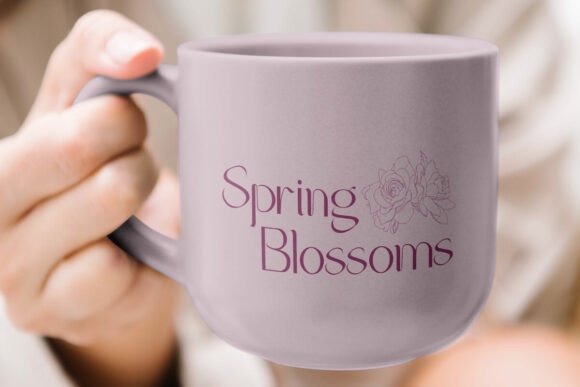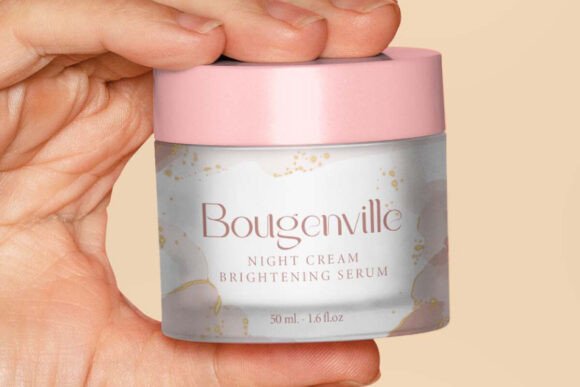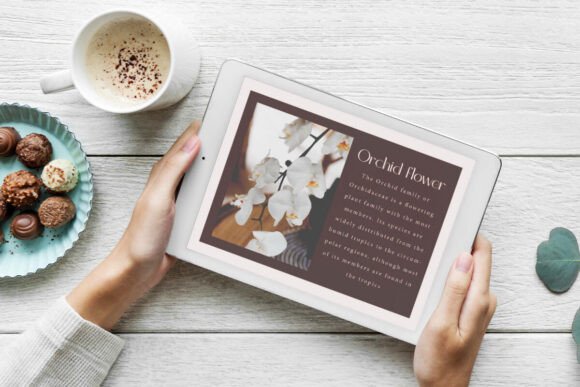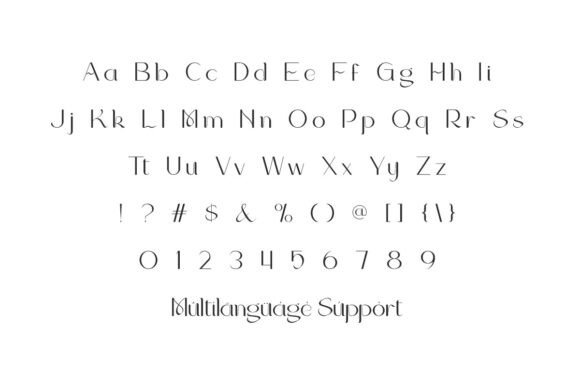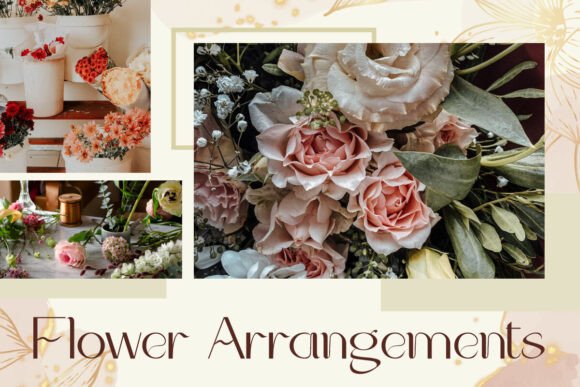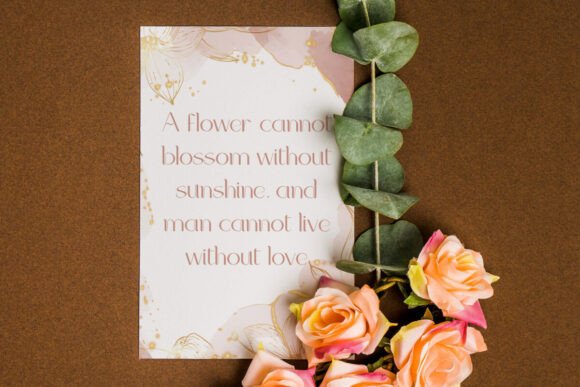
Introducing Bucket Flower Font: Elevate Your Designs with Elegance
Are you on the hunt for a font that can add a touch of sophistication and romance to your designs? Look no further than Bucket Flower Font, a stunning serif display font that is sure to captivate your audience. With its unique curvy style and wavy lines, this font is reminiscent of a beautiful bunch of flowers, making it perfect for a wide range of design projects.
What is Bucket Flower Font?
Bucket Flower Font is a carefully crafted serif display font that boasts a distinctive curvy style, setting it apart from more traditional fonts. Its wavy lines evoke the delicate petals of flowers, giving it a romantic and elegant feel. This font is designed to make a statement, adding a touch of refinement and luxury to any design it’s used in.
One of the standout features of Bucket Flower Font is its incredible versatility. Whether you’re working on a brand image, custom design, gift box, invitation, label, poster, product packaging, quote, signage, stationery, or website page, this font is sure to fit the bill. Its adaptability makes it an excellent choice for designers and crafters who need a font that can keep up with their creative vision.
- Brand Image: Establish your brand’s identity with a font that exudes elegance and sophistication.
- Custom Design: Add a personal touch to your designs with Bucket Flower Font’s unique and curvy style.
- Gift Box: Make your gift boxes stand out with a font that’s as beautiful as the gift inside.
- Invitation: Set the tone for your event with an invitation that features a romantic and elegant font.
- Label: Create labels that are both functional and visually appealing.
- Poster: Grab attention with a poster that showcases Bucket Flower Font’s stunning design.
- Product Packaging: Elevate your product packaging with a font that adds a touch of luxury.
- Quote: Make your quotes and sayings even more impactful with a beautiful and eye-catching font.
- Signage: Create signs that are both informative and visually appealing.
- Stationery: Add a touch of elegance to your stationery with Bucket Flower Font.
- Website Page: Enhance your website’s design with a font that’s both sophisticated and engaging.
Why Choose Bucket Flower Font?
There are many reasons why Bucket Flower Font stands out from the crowd. Here are just a few:
- Unique Design: Its curvy style and wavy lines make it a one-of-a-kind font that’s sure to grab attention.
- Elegant and Sophisticated: Perfect for designs that require a touch of luxury and refinement.
- Highly Versatile: Suitable for a wide range of design projects, from branding to website design.
- Easy to Read: Despite its decorative nature, Bucket Flower Font remains clear and easy to read.
Bucket Flower Font is a beautiful, sophisticated serif display font that can elevate your designs to new heights. Its unique curvy style, wavy lines, and romantic feel make it perfect for designers and crafters who want to add a touch of elegance and luxury to their work. With its incredible versatility and wide range of applications, Bucket Flower Font is sure to become a staple in your design toolkit. So why wait? Discover the beauty of Bucket Flower Font today and take your designs to the next level!